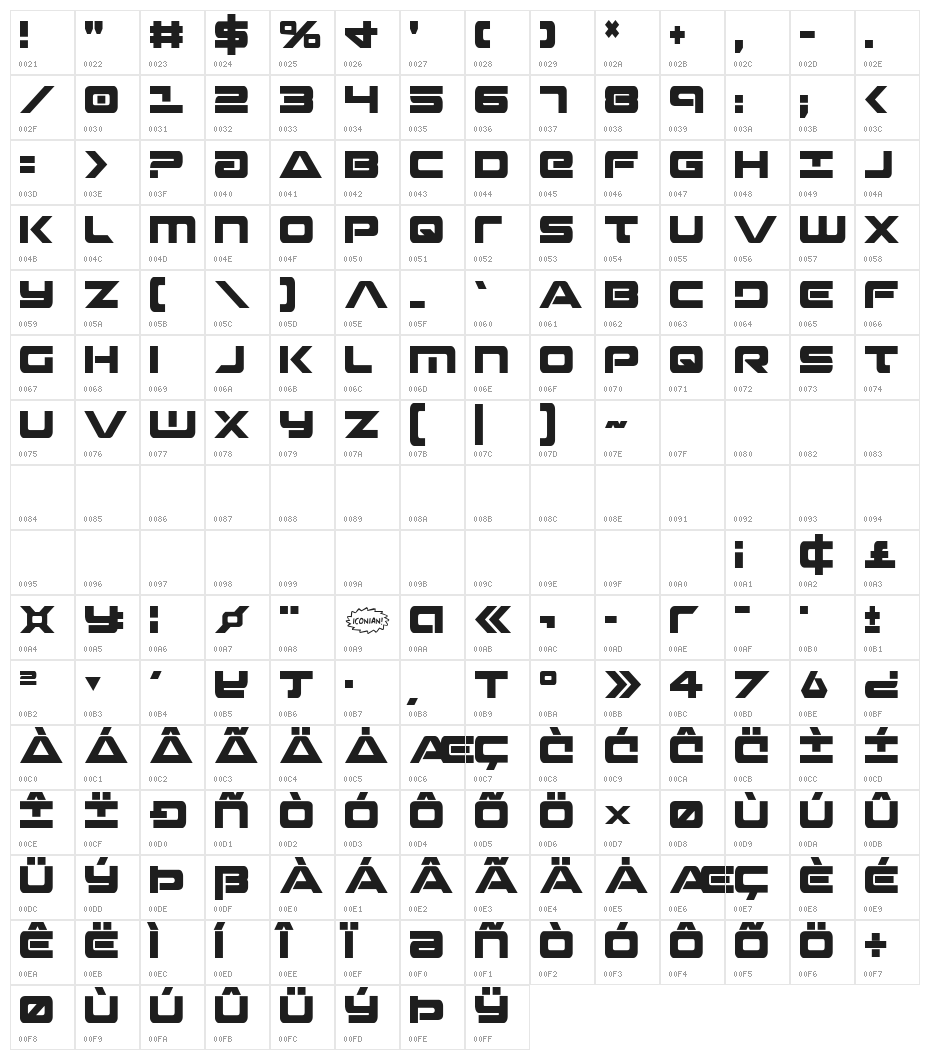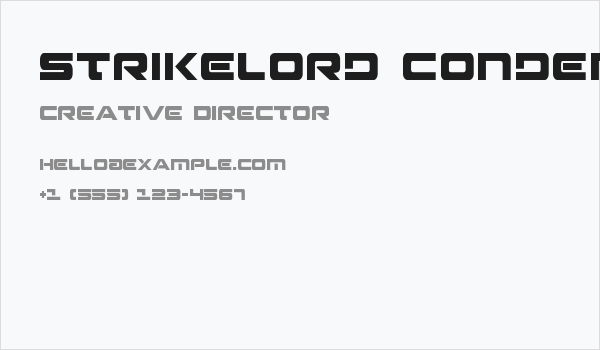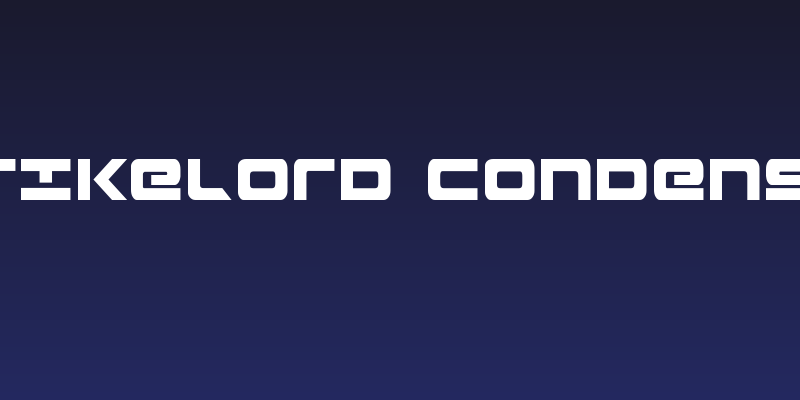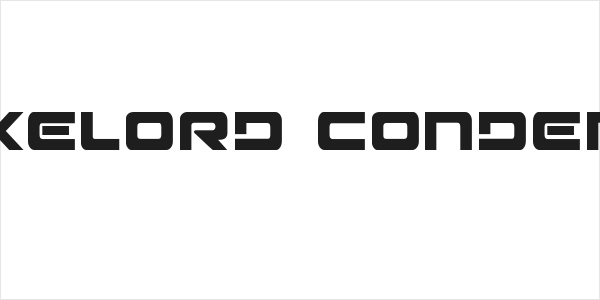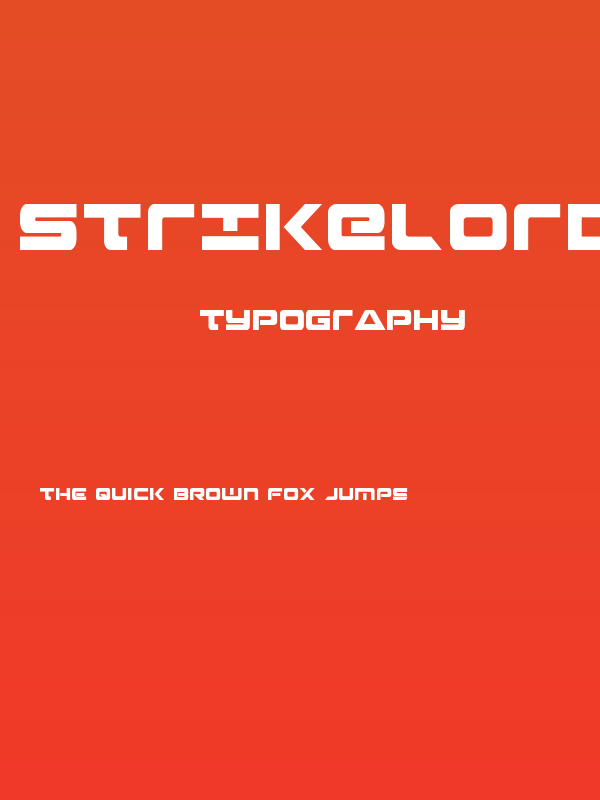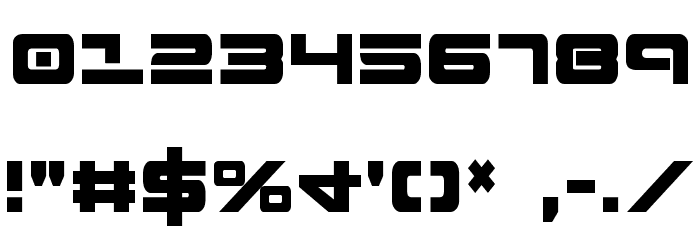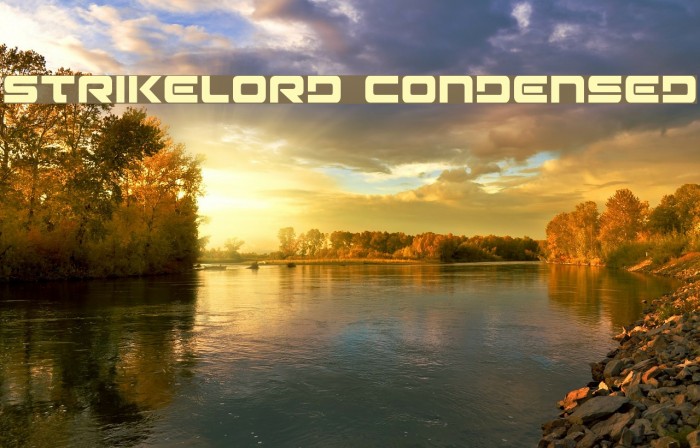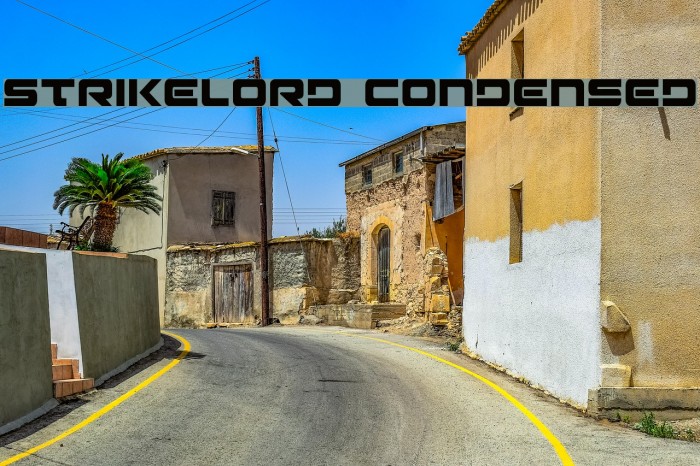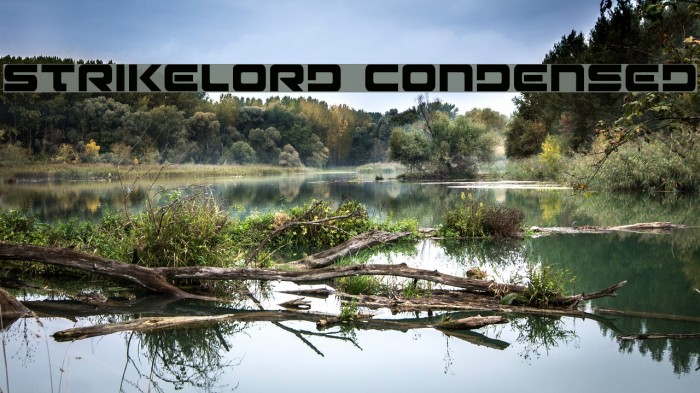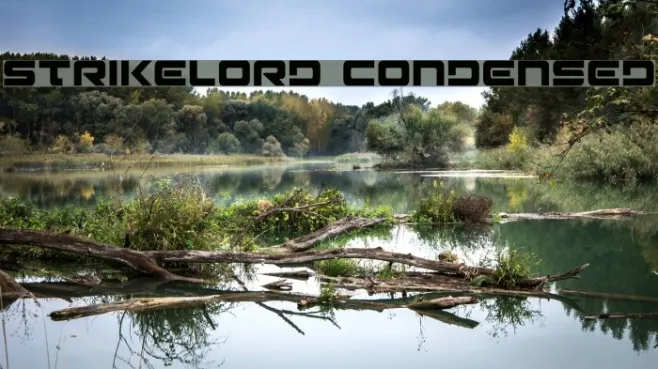
Strikelord Condensed Font
Strikelord Condensed Description
This font features a bold and futuristic design with a condensed structure. The characters are geometric and angular, giving a strong and assertive appearance. The uppercase and lowercase letters maintain a consistent style, with sharp edges and a uniform height that enhances readability. The numerals are equally bold, matching the overall aesthetic of the alphabet. Special characters are designed to complement the letters, maintaining the same angular and geometric style. This font is ideal for projects that require a modern and impactful look.
| Proposed Projects | Ideal for sci-fi themed designs, video game graphics, tech branding, and modern posters. |